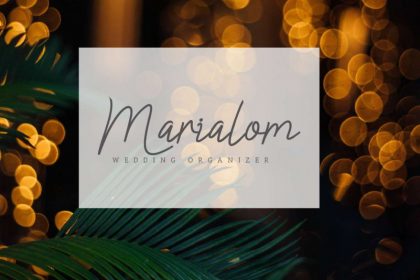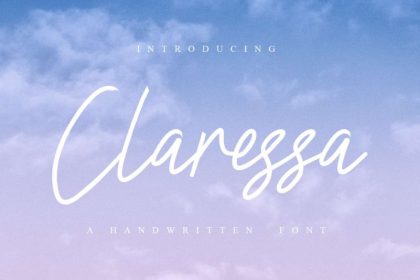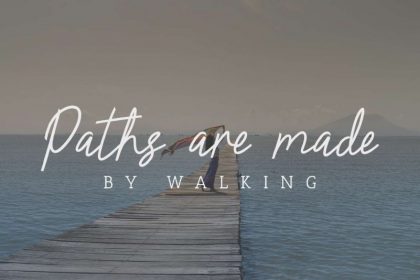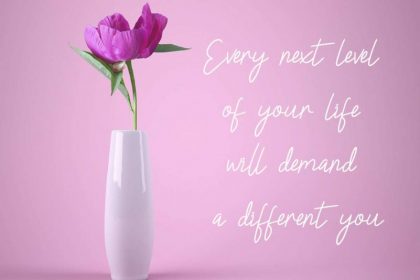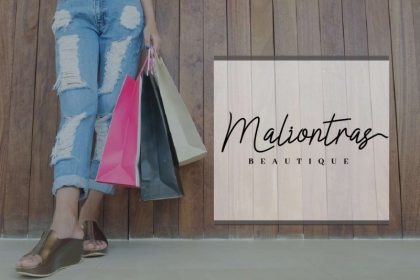
Claressa Handwriting Font
Claressa Handwriting Font is a signature with sopisticated glyphs and got so many alternatives glyps : both lower and upper cases. Claressa Font has also international languages glyphs. Claressa Font will Work on PC & Mac with Simple installations. Accessible in the Adobe Illustrator, Adobe Photoshop, Adobe InDesign, even work on Microsoft Word. It’s also PUA Encoded Characters – Fully accessible without additional design software.